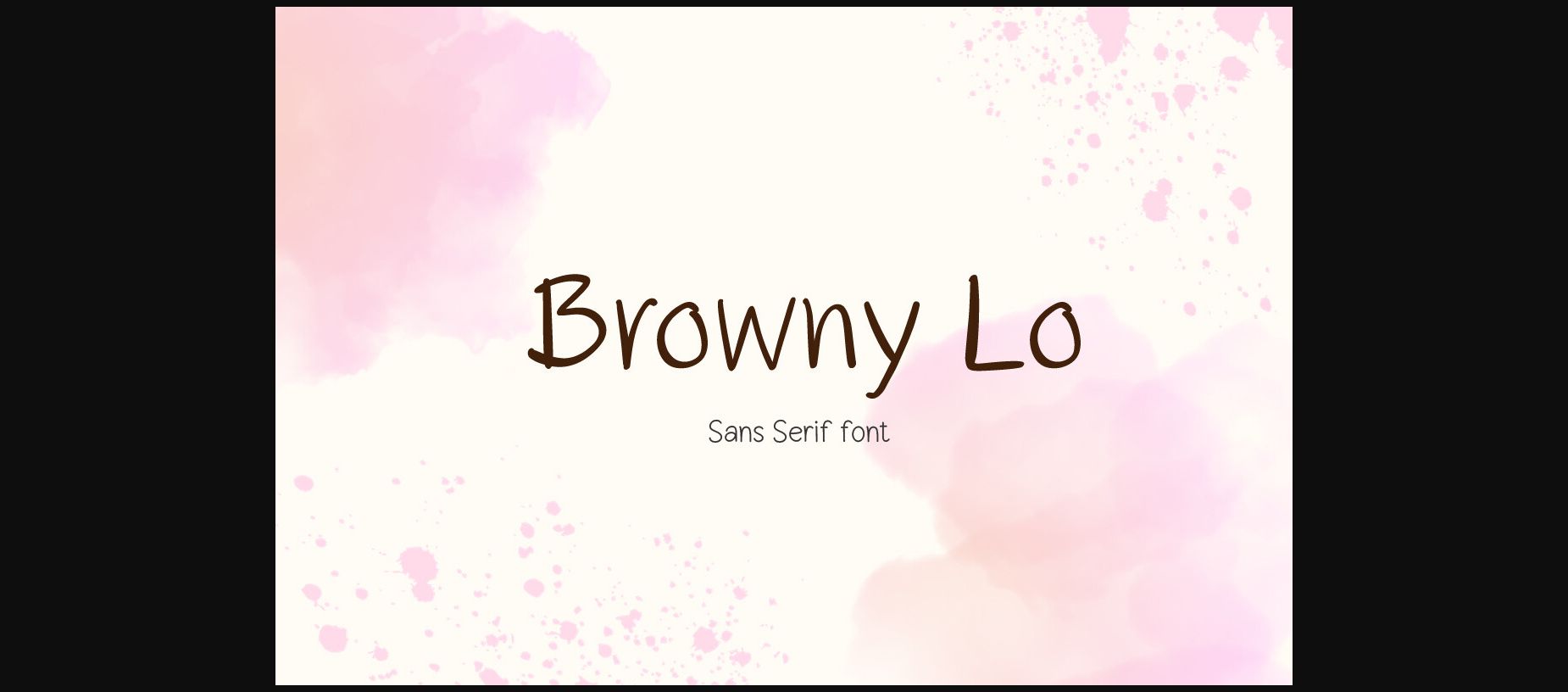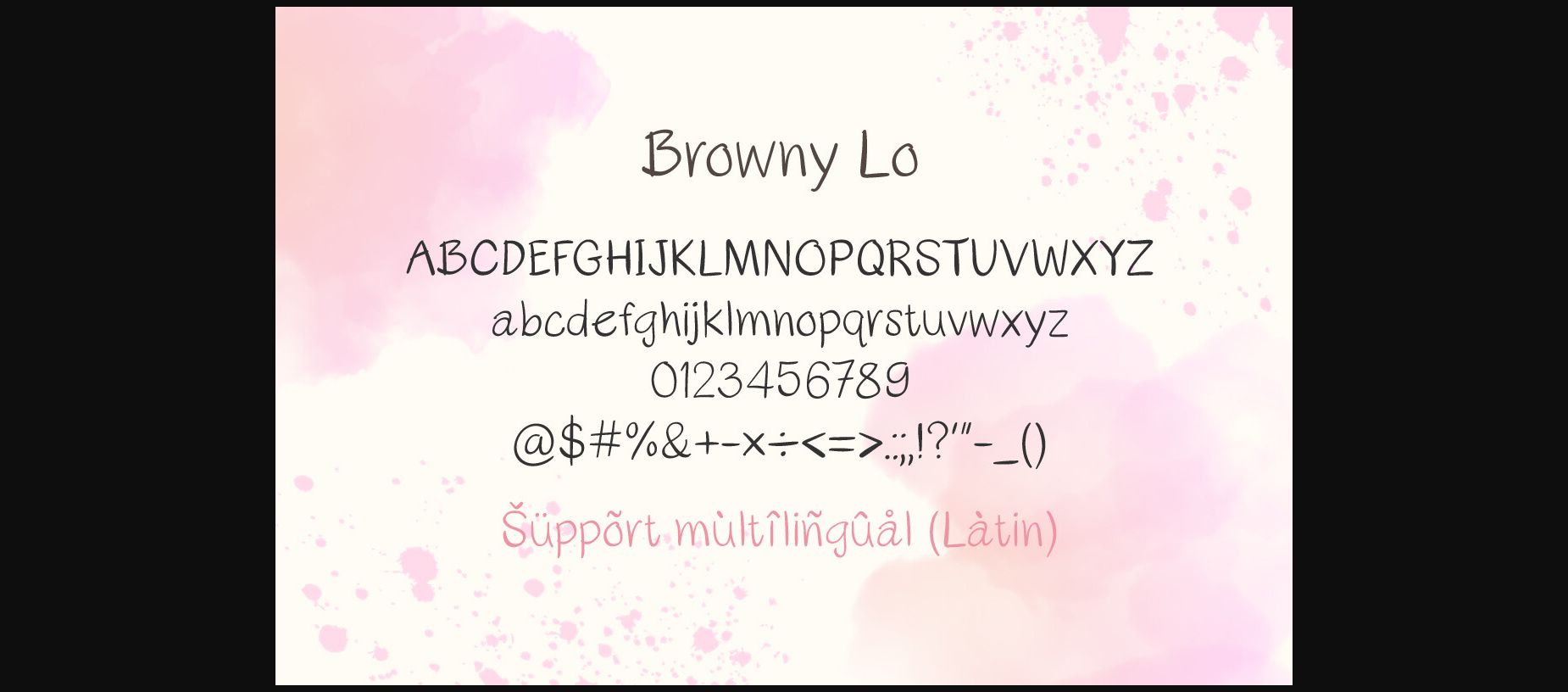
About Browny Lo Font
Browny Lo is designed in a playful and friendly handwritten sans serif font style. It would be awesome to your fun projects or diary planner, on wedding invitations, thank you cards, quotes, greeting cards, logos, posters, blogs, bag, T Shirt, clothing, eye-catching social media posts, and much more!